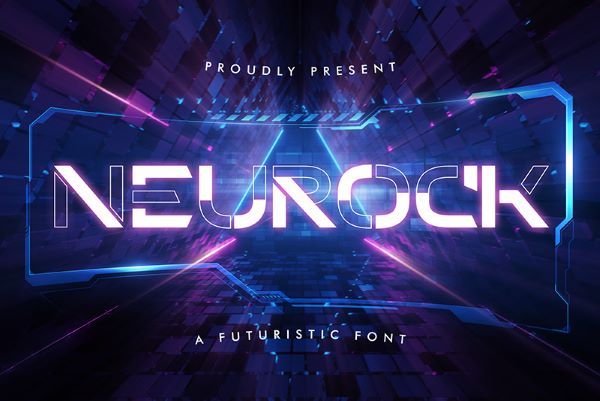
Neurock Font
Neurock Font is a Sci-Fi Font by Almarkhatype with a sharp technical mood and a unique futuristic form that makes it a perfect fit for electronic and innovative design subjects. Its cyber, techno construction feels right at home across space designs, web graphics, music visuals, and gaming interfaces — a cool, commanding all-caps typeface that signals the future in every character.
It excels across sci-fi posters, DJ branding, tech logos, gaming projects, T-shirts, and any creative work that needs a robotic, futuristic edge with genuine typographic character. Browse our full library of Free Fonts and discover more bold futuristic typefaces from independent designers worldwide.